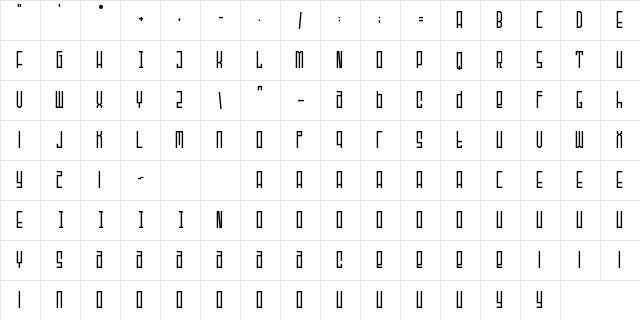
Playlines Free Regular
| Foundry | Putracetol Studio |
| Designer | Putra novembria candra kusuma |
Design Context for Playlines Free Typeface
Playlines Free offers clean, dependable letterforms without strong stylistic allegiance, making it a practical choice for designers who need flexibility.